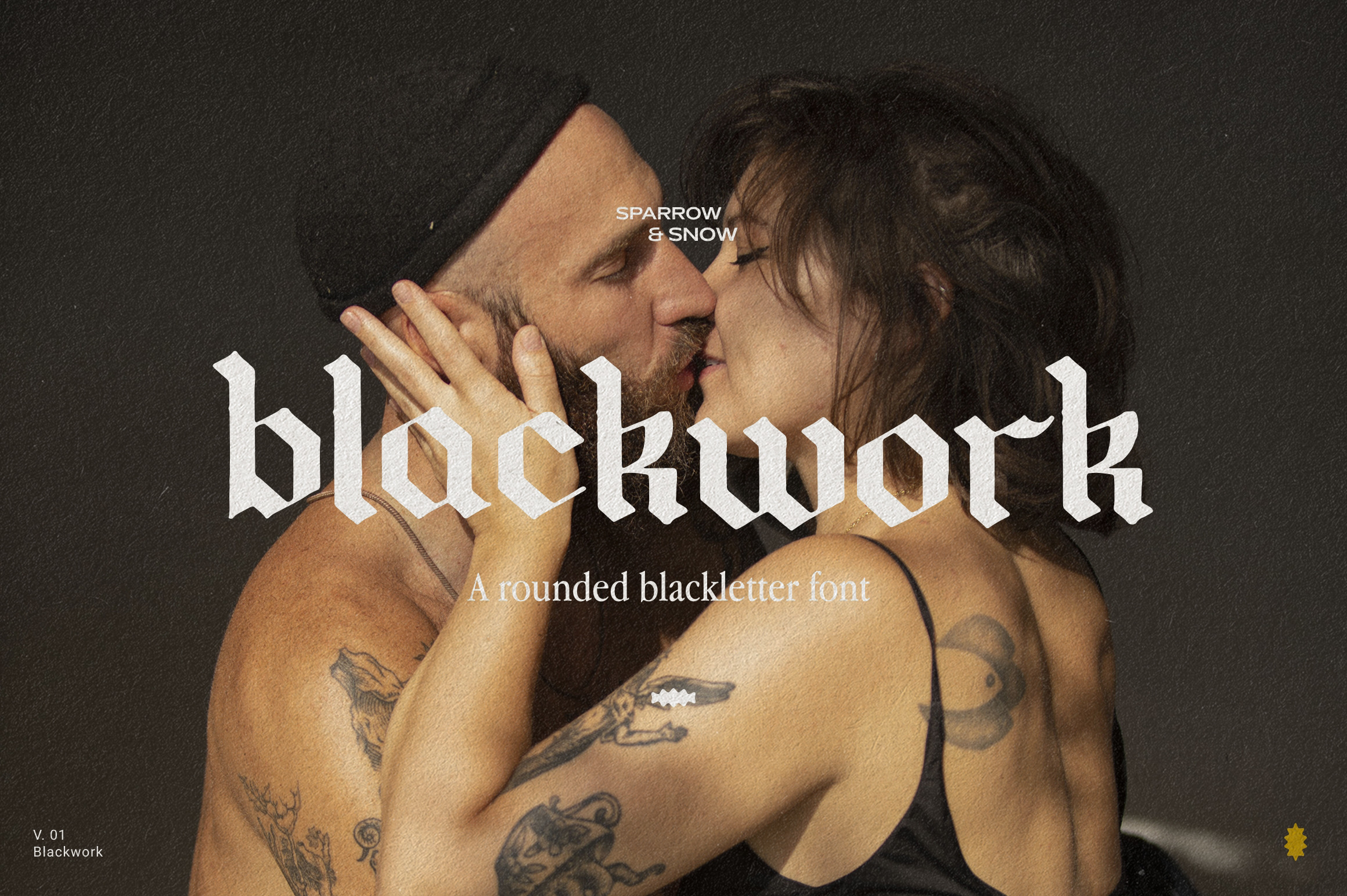
Blackwork - Rounded Blackletter Font
Blackwork by Sparrow&Snow is a blackletter font with a rounded look for a natural, handwritten feel that will make your design projects truly stand out.
Blackwork performs nicely in logos and titles, and maintains a good readability also in paragraph text.
Blackwork includes characters for multilingual support: uppercase, lowercase, numbers, punctuation and special characters.